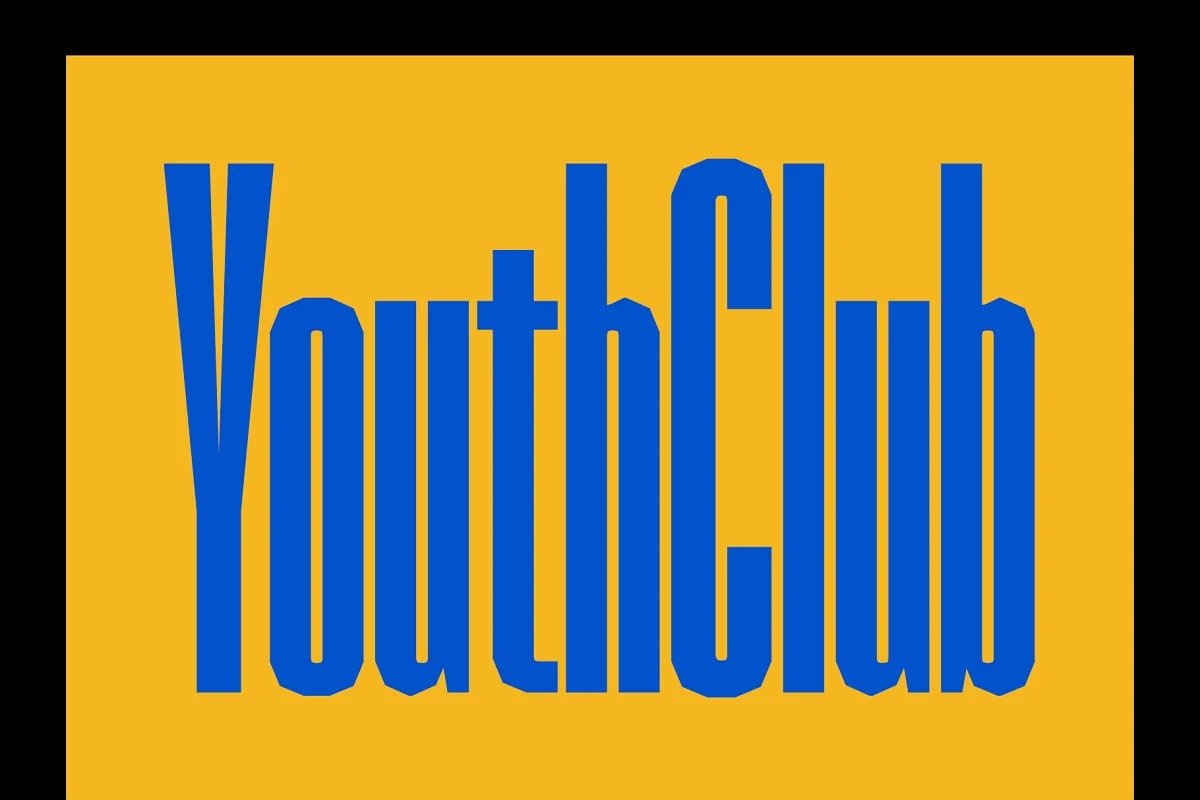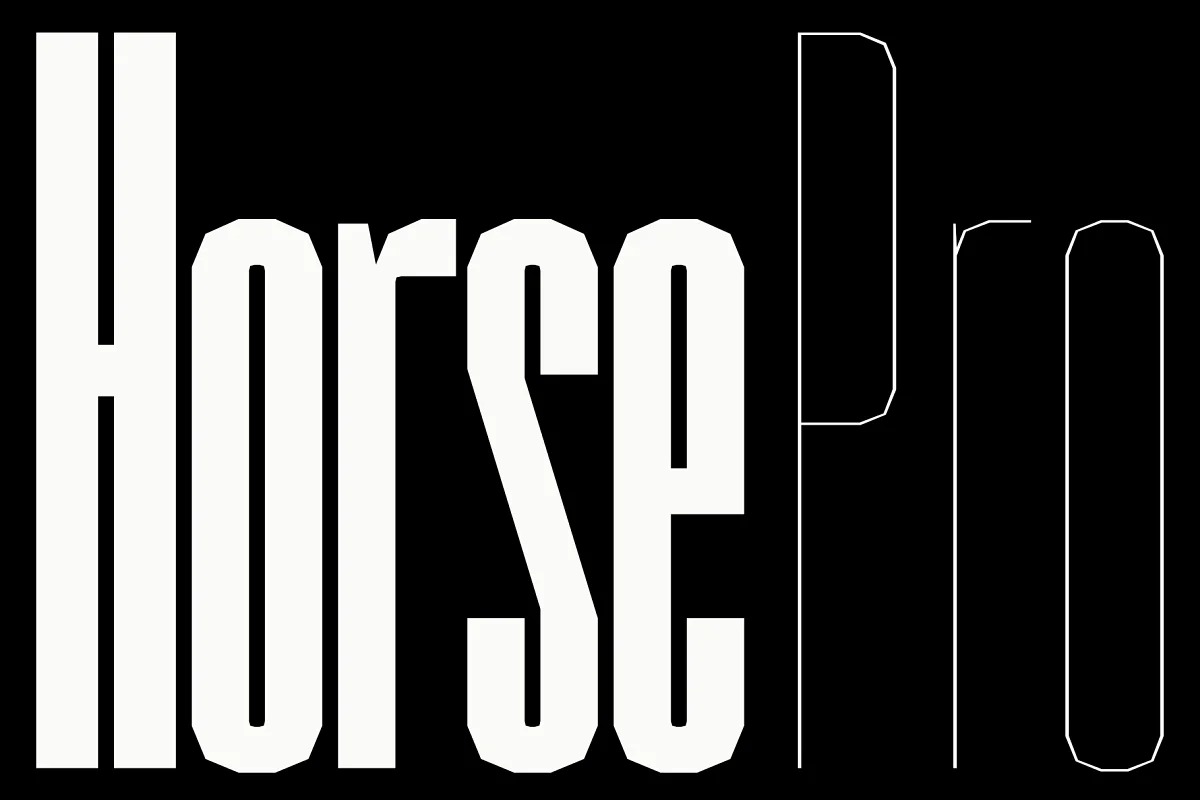
Horse Pro Font
Horse Pro Sans Serif Font is a display sans serif font family inspired by old design archives. It’s designed and shared by andika fez. This unique sans serif font family is very good for branding, logo projects, headings, advertising, packaging, web design, print goods and other creative projects.